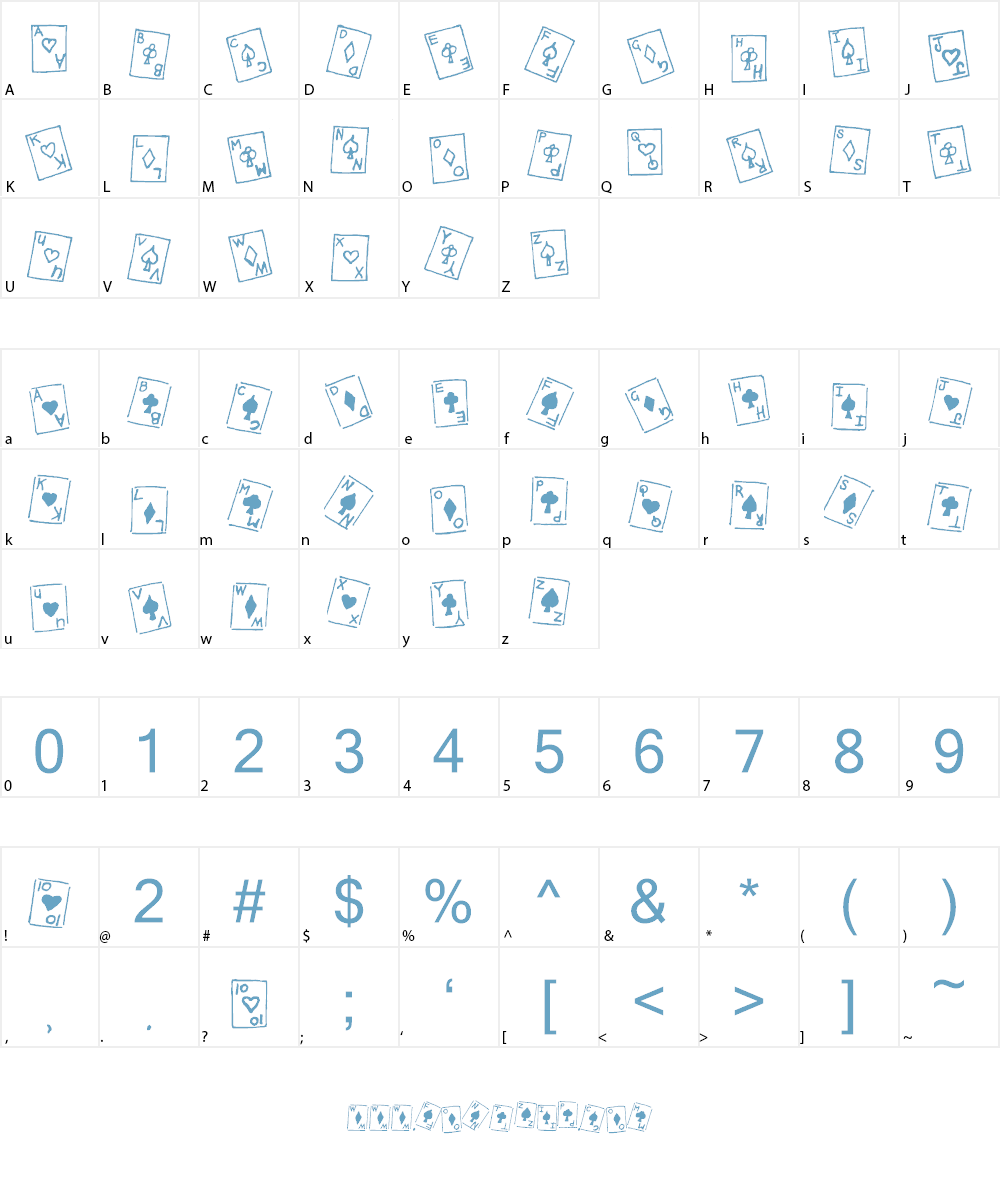
This is a playful, card themed font. You can give the lowercase 'letters' a different type of look by putting them through Microsoft Word 'Word Art' (text effects) and you can colour in the different uppercase 'letters/cards' by using Paintbrush. See the Royal Flush image for the example.